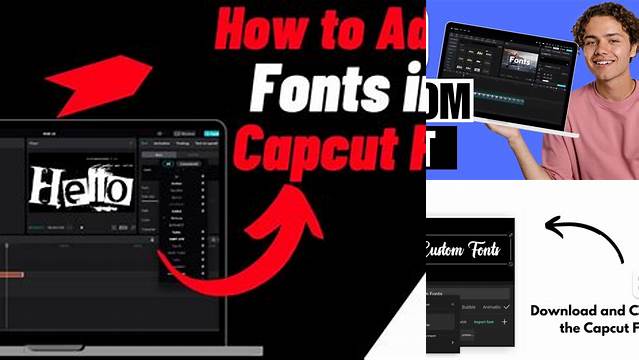
CapCut PC Fonts: A Complete Guide
Mastering Font Usage in CapCut PC: A Beginner's Guide
Hey guys, let's dive into the awesome world of fonts in CapCut PC! If you're just starting out and wondering how to jazz up your videos with cool text, you've come to the right place. CapCut PC makes it super easy to add text, and even easier to make it pop with different fonts. Think of your video captions as the voice of your content – they need to be clear, engaging, and visually appealing. That's where the right font comes in. We'll walk through everything from finding the font menu to customizing your text to perfection. You don't need to be a design guru to make your videos look professional; CapCut PC has all the tools you need right at your fingertips. So, grab your project, open up CapCut PC, and let's get creative. We'll cover the basics, explore some neat tricks, and ensure your video text is as impactful as your footage. Get ready to transform your captions from plain text to eye-catching statements!
Exploring the Font Library in CapCut PC for Your Videos
Alright, so the first thing you'll want to do when you're using fonts in CapCut PC is to get familiar with the built-in library. CapCut PC comes packed with a generous selection of fonts to get you started. To find them, you’ll typically navigate to the 'Text' tab in your CapCut PC interface. Once you've added a text layer to your timeline, you'll see a panel with various editing options. Look for the 'Font' dropdown menu. Clicking this will reveal a whole world of typographic possibilities! You'll find everything from classic serifs and clean sans-serifs to more decorative and playful styles. Don't be afraid to scroll through them all! Each font has its own personality, and the right one can completely change the mood and message of your text. Consider the overall vibe of your video. Is it a professional tutorial? A fun vlog? A dramatic short film? The font choice should complement that. For instance, a bold, blocky font might work well for a tutorial, emphasizing key points, while a more script-like font could be perfect for a personal story or a romantic montage. Spend some time just browsing, clicking on different fonts to see how they look on your text. This exploration is key to finding the perfect typographic match for your video project.
How to Import Custom Fonts into CapCut PC: Elevate Your Designs
Customizing Font Size and Color in CapCut PC: Visibility is Key
Okay, so you've picked a font, awesome! But we're not done yet. Two of the most crucial aspects of using fonts in CapCut PC effectively are size and color. Getting these right ensures your text is not only readable but also visually appealing and complements your video. When your text layer is selected, you'll find options to adjust the font size. This is usually a numerical input or a slider. The key here is balance. Too small, and your audience might struggle to read it, especially on smaller screens. Too large, and it can overpower your video or look clunky. Experiment to find a size that's easily legible without being distracting. Similarly, font color plays a massive role. Click on the color swatch next to the font selection. CapCut PC offers a wide palette, and you can even use a color picker to select a precise shade. Think about contrast! Your text needs to stand out against your background footage. If you have a bright background, a dark font usually works best, and vice-versa. Sometimes, adding a subtle stroke or shadow (we'll get to that!) can further enhance readability. Don't underestimate the power of these simple adjustments; they can make a world of difference in how your message is received.
Adjusting Font Spacing (Kerning and Leading) in CapCut PC: The Details Matter
Let's get a bit more technical, guys, but in a good way! When you're using fonts in CapCut PC, the fine-tuning of spacing can make your text look incredibly polished and professional. We're talking about kerning and leading, though CapCut PC might not use those exact terms. You'll often find options for 'Letter Spacing' and 'Line Spacing'. Letter spacing, or kerning, is the adjustment of space between individual letters. Some fonts have awkward gaps that can be distracting. By slightly tightening or loosening the space between letters, you can create a smoother, more visually pleasing flow. Line spacing, or leading, refers to the vertical space between lines of text. If you have multiple lines, adjusting this can prevent them from feeling cramped or too spread out, improving readability and the overall aesthetic. Play around with these settings! Even small tweaks can have a significant impact. Good spacing makes your text feel intentional and well-designed, rather than just slapped onto the screen. It shows attention to detail, which is always a win in content creation. So, don't skip this step; it’s where the magic truly happens for professional-looking text.
Applying Bold, Italic, and Underline Styles with CapCut PC Fonts
We've all seen them, and they're essential tools in any text editor: bold, italic, and underline. Using fonts in CapCut PC isn't complete without knowing how to utilize these basic but powerful styling options. These aren't just for emphasis; they can help structure your text and guide your viewer's eye. Selecting your text layer and looking at the text editing options, you'll typically find buttons or checkboxes for 'B', 'I', and 'U'. Bold text is great for making key words or phrases stand out, drawing immediate attention. Italic text often adds a sense of emphasis, sophistication, or can be used for titles or foreign words. Underlining, while less common in modern video graphics (as it can sometimes be confused with links online), can still be used sparingly for specific effects or to highlight important information. Be mindful not to overuse them, as too much bold or italic can make your text look cluttered and hard to read. Use them strategically to enhance clarity and impact. Experiment with combining them – perhaps a bold italic for a crucial announcement? CapCut PC makes applying these styles instantaneous, so give them a whirl!
Utilizing Text Effects and Animations with CapCut PC Fonts
This is where using fonts in CapCut PC gets really exciting, guys! Beyond static text, CapCut PC offers a fantastic range of effects and animations to make your words dynamic and engaging. Head over to the 'Effects' or 'Animation' tabs within the text editing panel. You'll find options for text entering and exiting the screen, as well as effects that apply while the text is on screen. Think about animated typewriters, sliding text, fading in and out, bouncing, or even more complex kinetic typography. These animations can dramatically increase viewer retention by adding visual interest. They can also help convey emotion or energy. For example, a fast-paced, energetic animation might suit a product review, while a slow, gentle fade-in could be perfect for a heartfelt dedication. Remember to keep it relevant to your video's tone. Over-the-top animations can be distracting. Browse through the presets, see what catches your eye, and then tweak the duration and intensity to fit your specific needs. This is your chance to make your text truly come alive!
Adding Text Shadows and Outlines to Fonts in CapCut PC for Readability
One of the most effective ways to ensure your text is legible, no matter the background, is by using shadows and outlines. This is a fundamental technique when using fonts in CapCut PC for maximum clarity. Look for options like 'Shadow' or 'Stroke' (sometimes called 'Outline') in the text editing menu. A shadow, usually a darker color offset slightly from the text, adds depth and separation. You can often adjust its color, opacity, blur, and position. A subtle shadow can work wonders on busy or similarly colored backgrounds. An outline or stroke adds a border around each letter. This is incredibly useful for making text pop against complex imagery or bright skies. You can adjust the thickness and color of the stroke. Often, a simple white or black stroke is all you need. Experiment with different combinations. Sometimes, a dark text with a white outline is perfect. Other times, a light text with a black shadow works best. The goal is contrast. Test your text on various parts of your video footage to ensure it remains readable throughout. These features are simple but incredibly powerful for professional-looking results.
Best Practices for Font Pairing in CapCut PC: Creating Visual Harmony
Using just one font is fine, but sometimes, using fonts in CapCut PC effectively means pairing two or more complementary fonts. This is an art, but there are some easy guidelines to follow. The key is contrast and hierarchy. Generally, you want to pair a serif font with a sans-serif font. For example, a classic serif for a title and a clean sans-serif for body text. Or, pair a bold, display font for headings with a simple, readable font for captions. Avoid pairing fonts that are too similar – they'll compete and look like a mistake. Think about the personality of each font. Do they complement each other, or clash? CapCut PC's library is a great place to experiment. Try a bold, impactful font for your main titles and then a simple, clear font for any supporting text. You can also use different weights (like bold, regular, light) of the same font family to create contrast within a single typeface. The goal is to create visual interest and guide the viewer's eye through the information. Good font pairing makes your text look intentionally designed and adds a layer of sophistication to your videos.
The Future of Fonts and Text Animation in Video Editing with CapCut PC
The world of digital media is constantly evolving, and that includes how we use fonts in CapCut PC and other video editing software. We're seeing a trend towards more dynamic and interactive text. Expect more sophisticated text animations, AI-powered font suggestions, and perhaps even real-time font rendering improvements. Tools like CapCut PC are likely to integrate even more advanced typographic controls, allowing for greater creative expression. Think about augmented reality overlays or even text that reacts dynamically to audio input. As video content becomes even more dominant, the importance of compelling and well-executed typography will only grow. CapCut PC is at the forefront of making these powerful tools accessible to everyday creators. So, keep experimenting, stay curious, and embrace the future of how we tell stories with words and visuals!